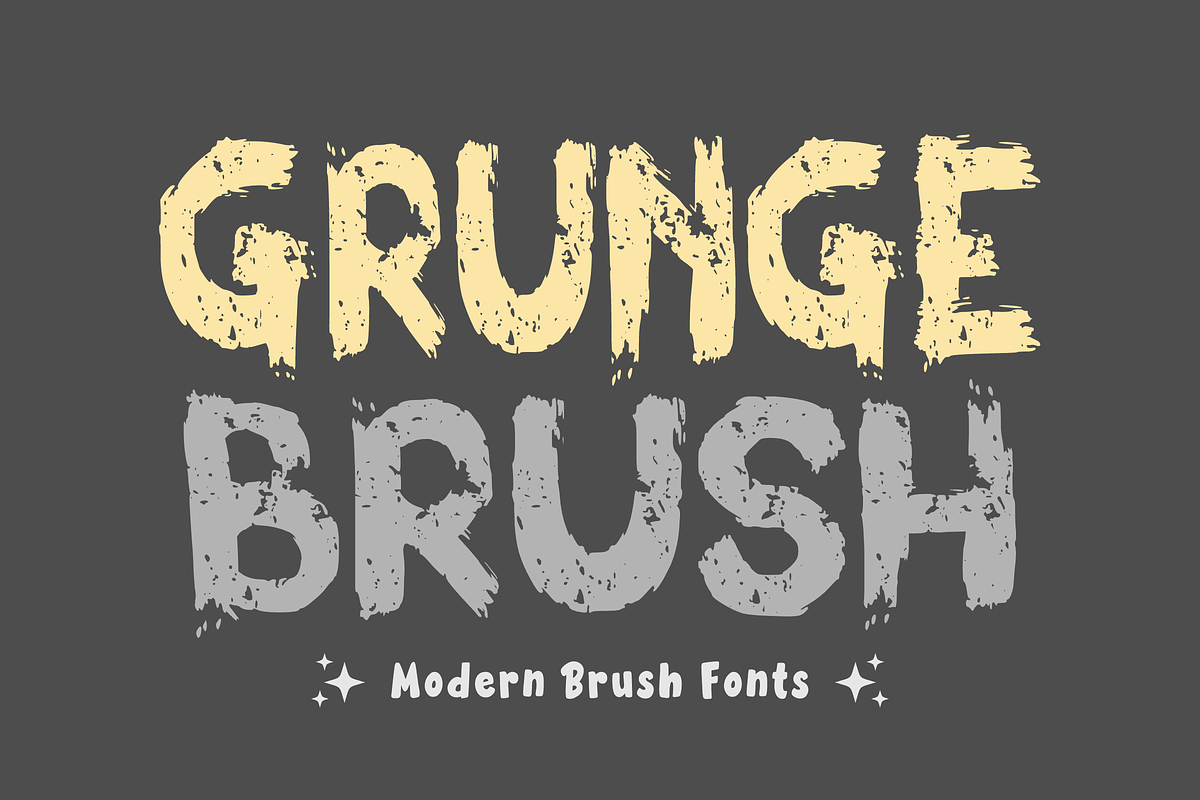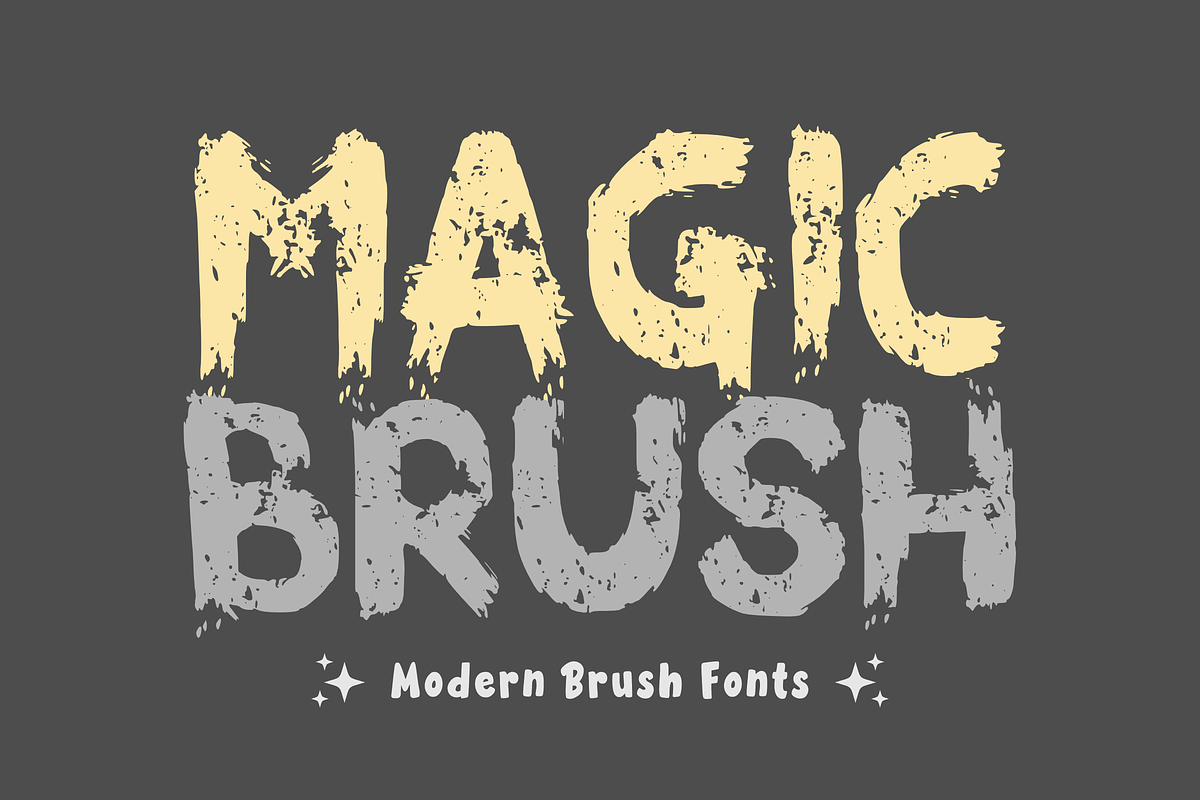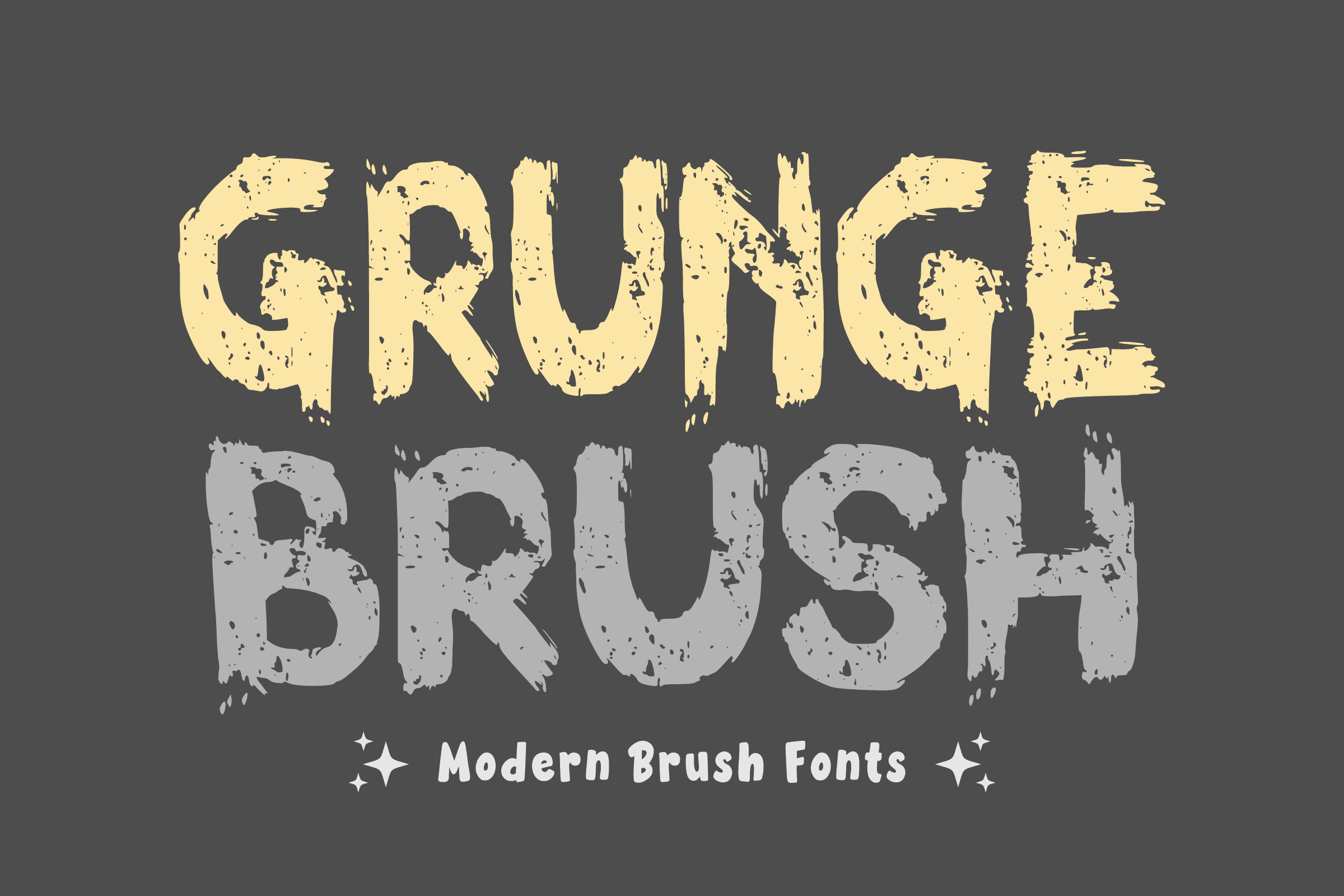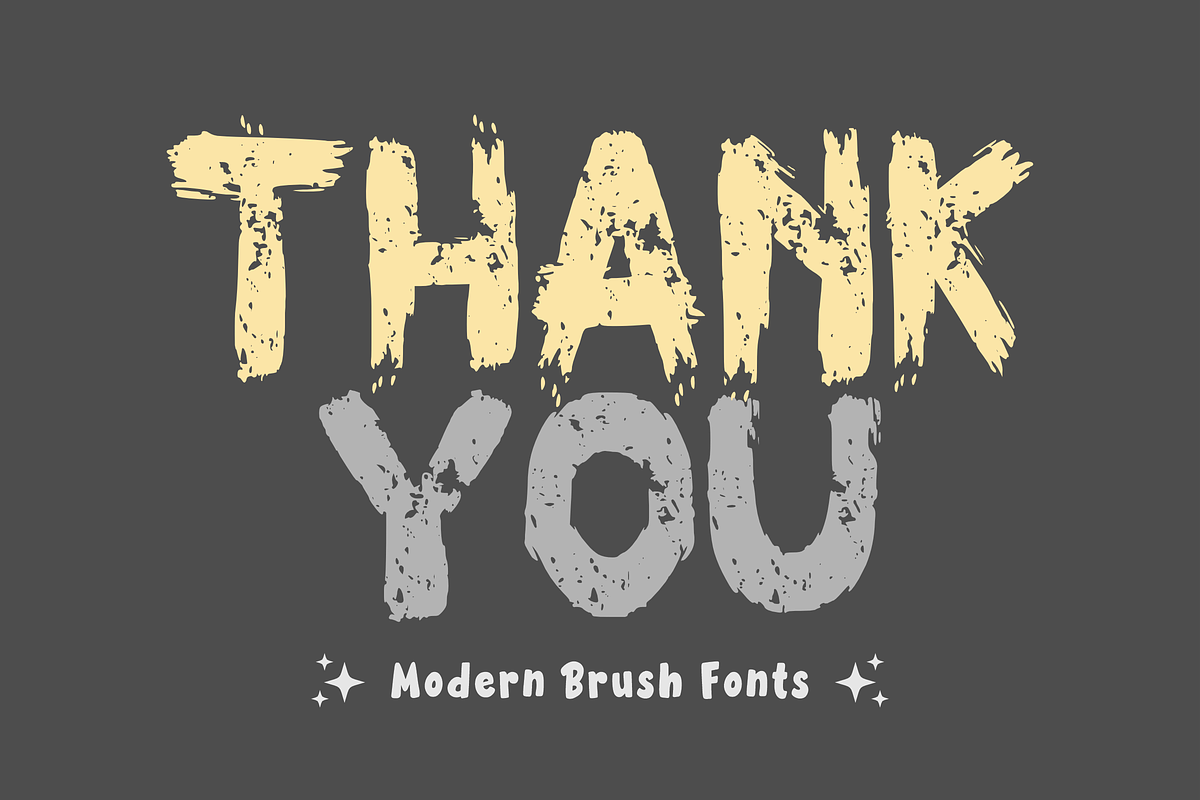
Grunge Brush - Brush Font Types
Discover the edgy versatility of “Grunge Brush”, a contemporary brush-styled font. Each character is gracefully crafted, featuring distinctive spots for easy recognition. Grunge Brush is idyllic for embellishing sublimation designs on t-shirts, jazzing up mugs, adding a creative touch to tote bags, breath life into animations, or adding pop to comic titles and beyond. This font is your blank canvas, just waiting for your creative vision to bring it to life. Show your love by liking and following. Your support fuels our passion to craft innovative and unique font styles. Thank you for your ongoing support!